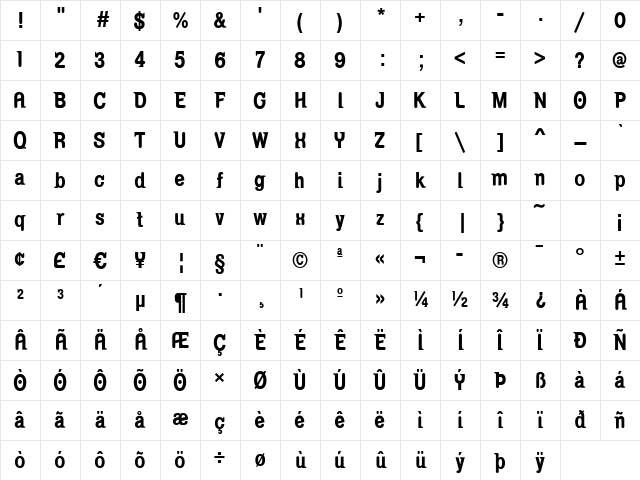
Serifina Regular Free Font
Serifina Regular
Design Context for Serifina
Serifina carries the refined structure of traditional serif typography, with bracketed terminals and considered proportions that communicate credibility and craft.
Pro Tip: Use Serifina for editorial body copy and considered headline work. Pair with a neutral sans for UI elements or captions to create a classic hierarchy.